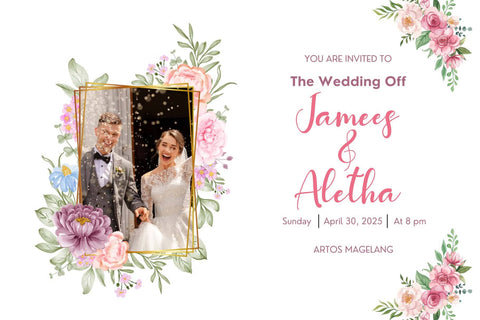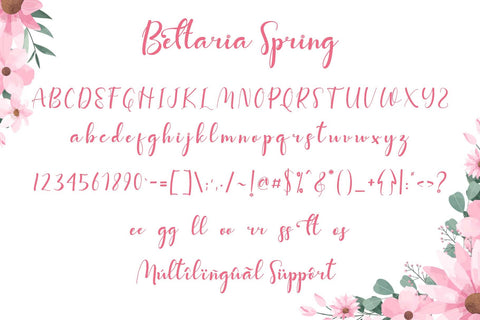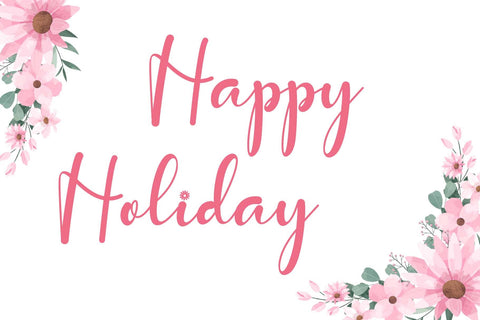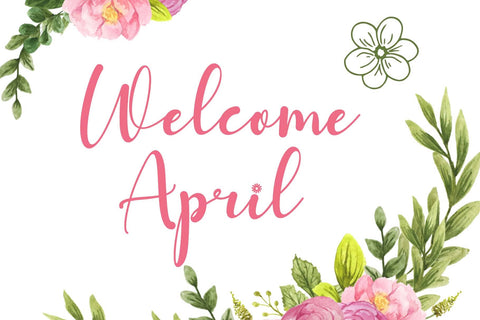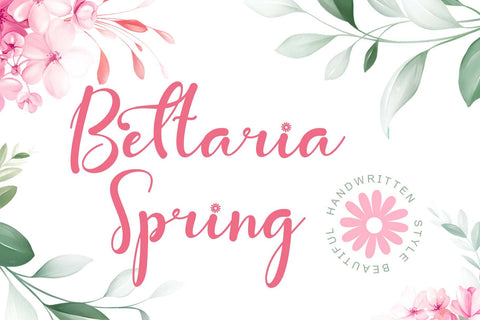
Bettaria Spring
"Bettaria Spring" is a beautiful handwritten font. This font is equipped with uppercase, lowercase, ligatures, numerals, punctuations and multilingual support. Very suitable for spring, summer, holiday, wedding, invitations, business branding, posters, prints, stickers, logos and others.